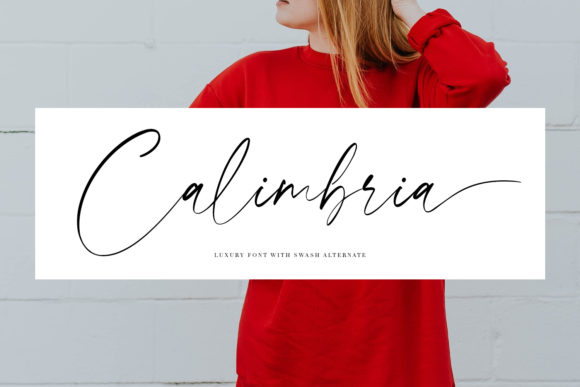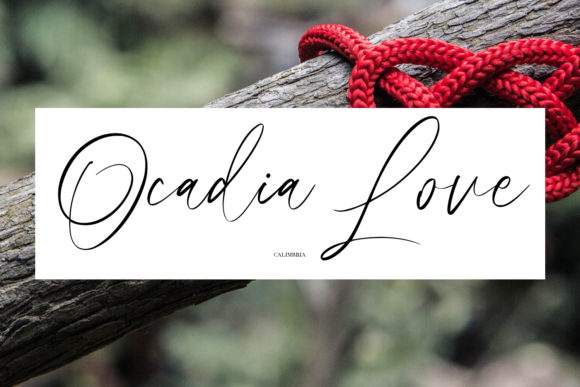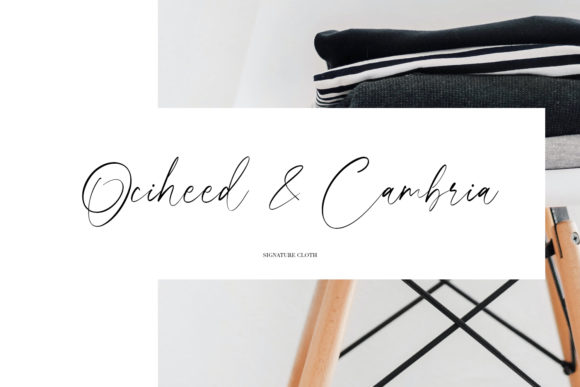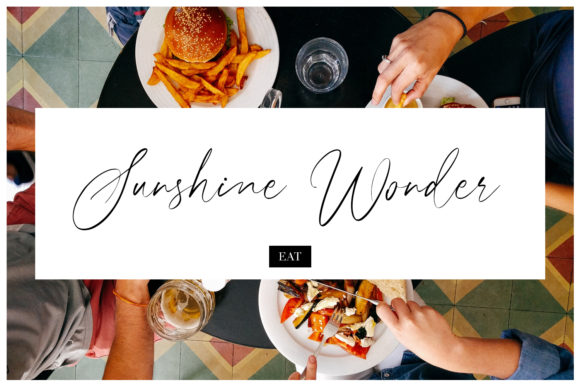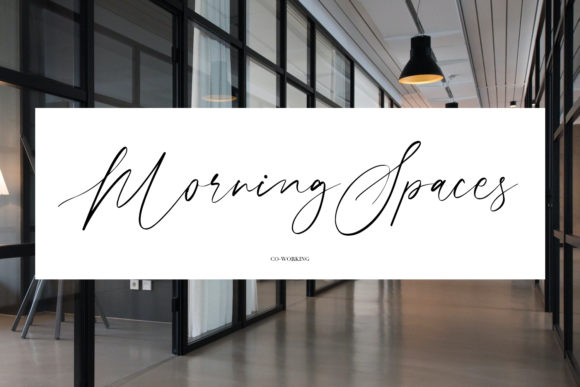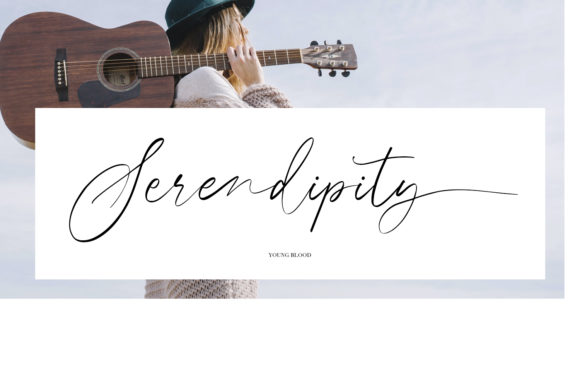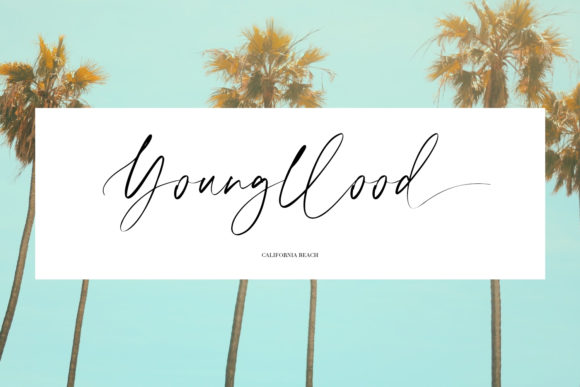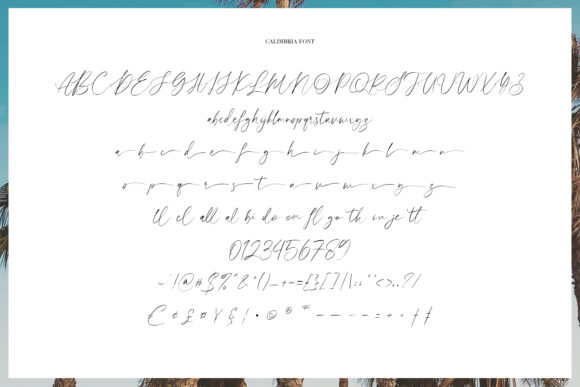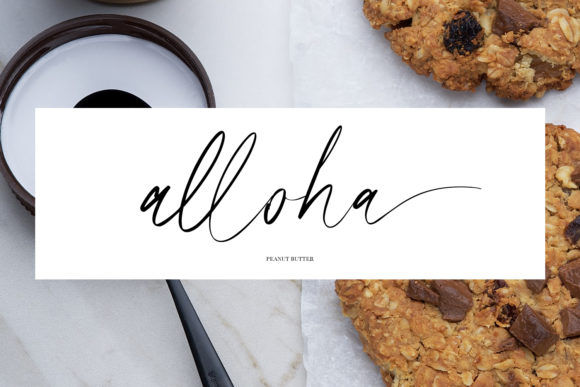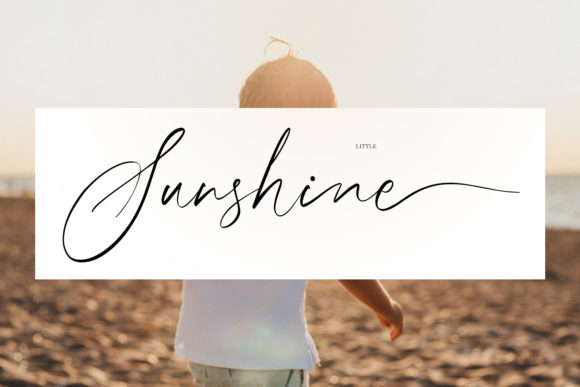
Calimbria Font
About Calimbria Font
Calimbria simplifies elegance into one truly outstanding script font. It maintains its classy calligraphic influences while feeling contemporary and fresh. This versatility will appeal to a wide range of crafty ideas, from letterheads and titles, to stationery.